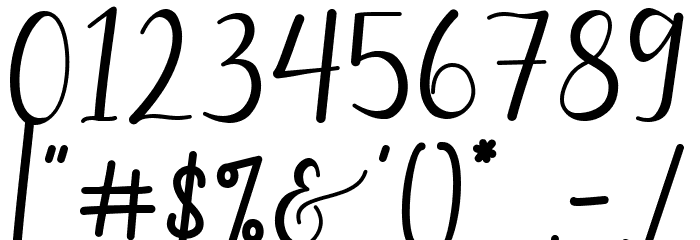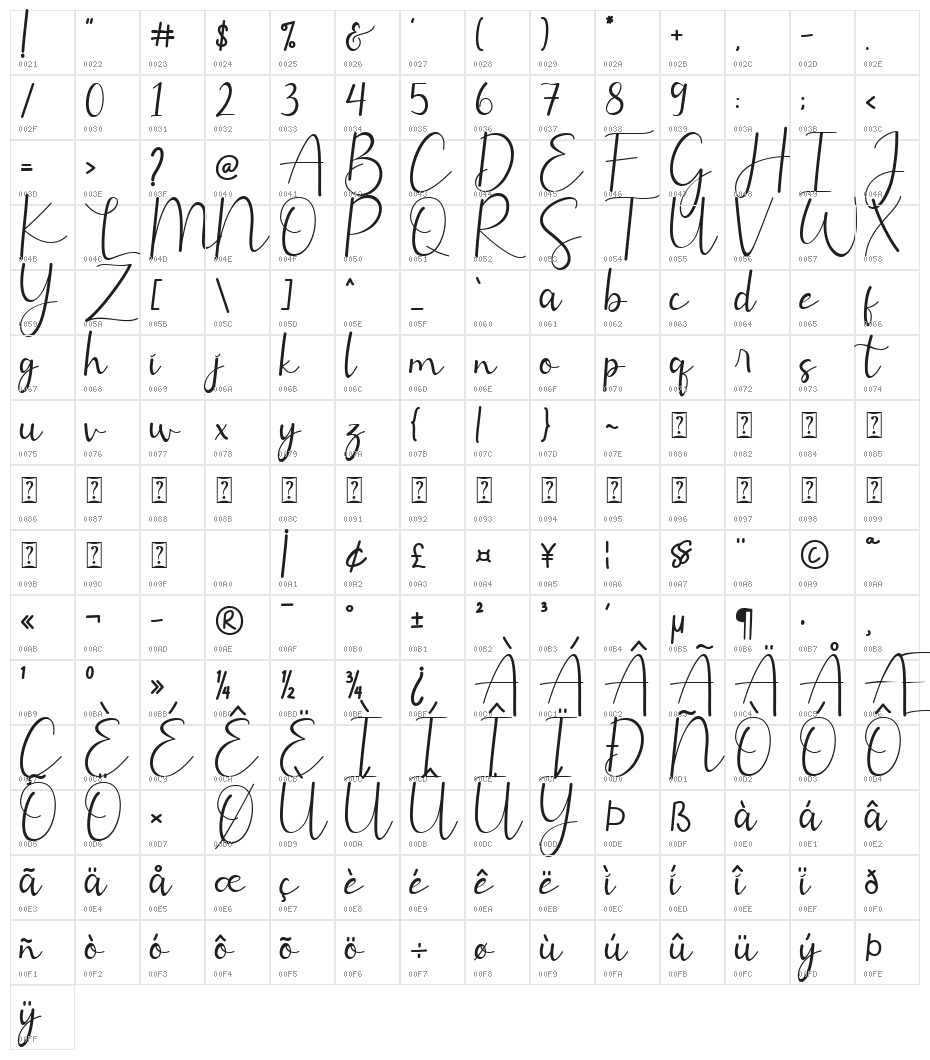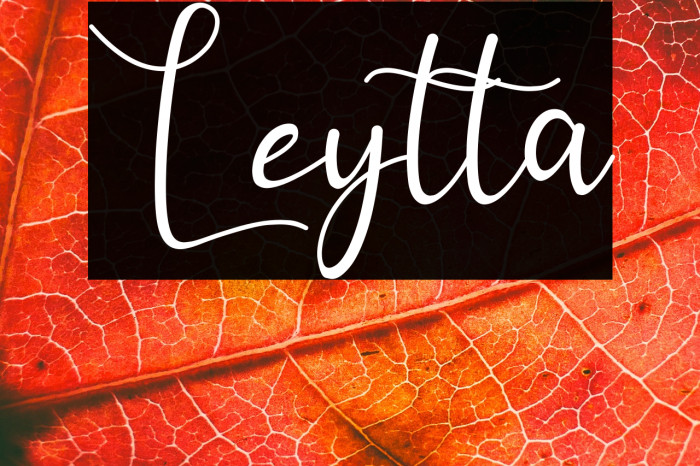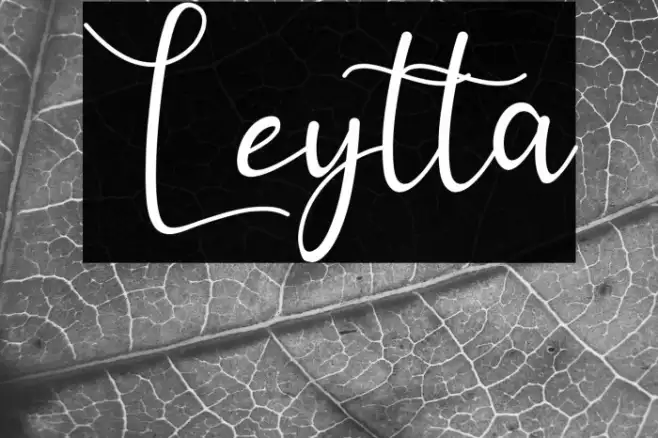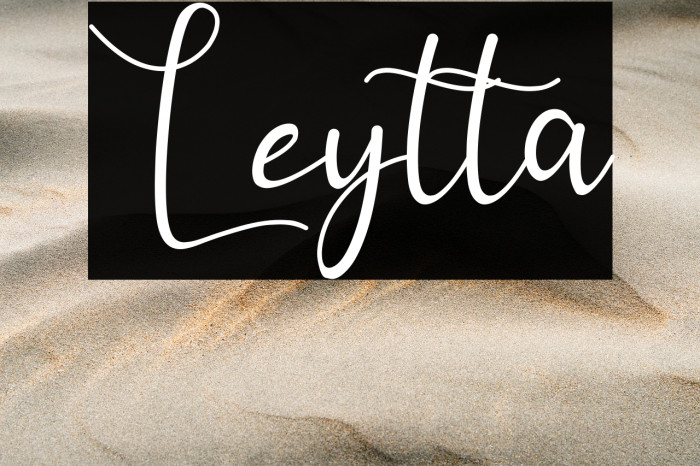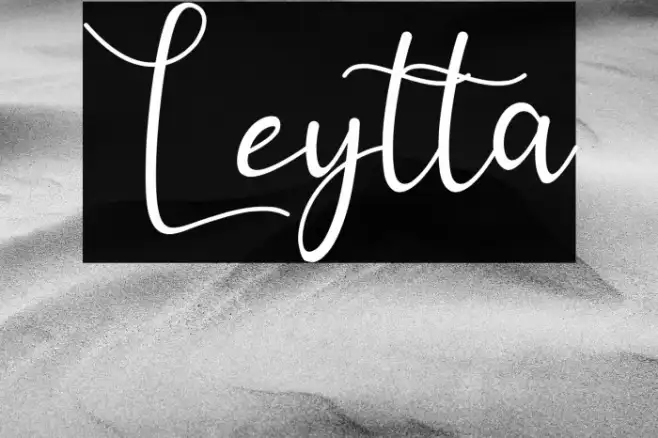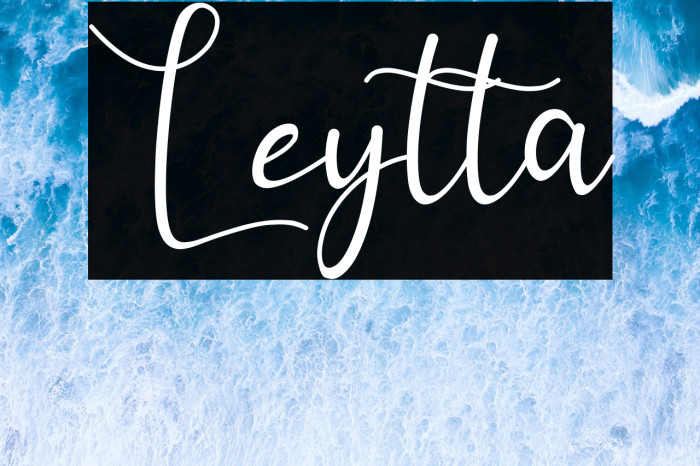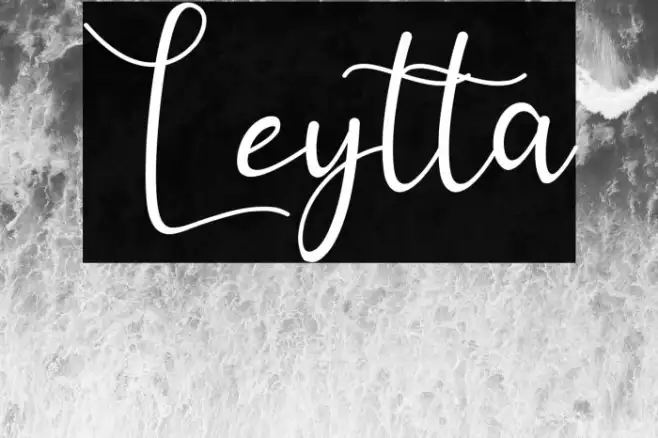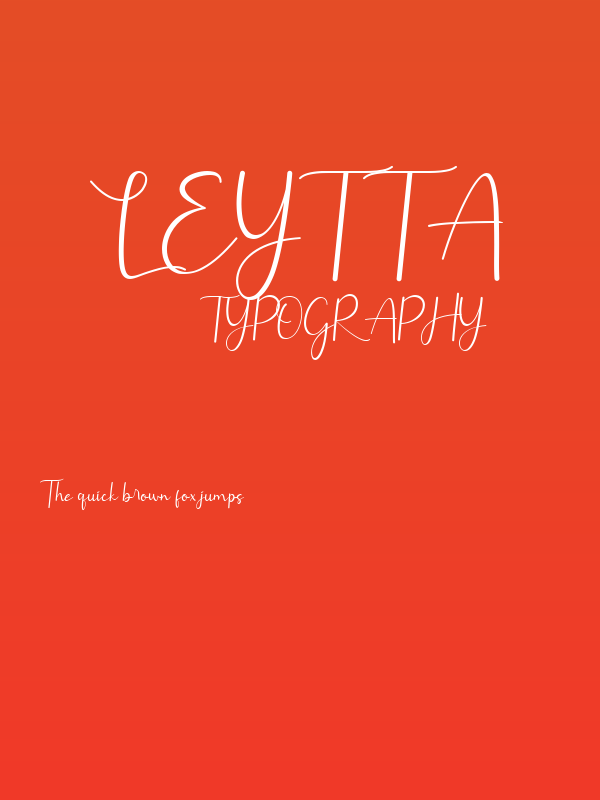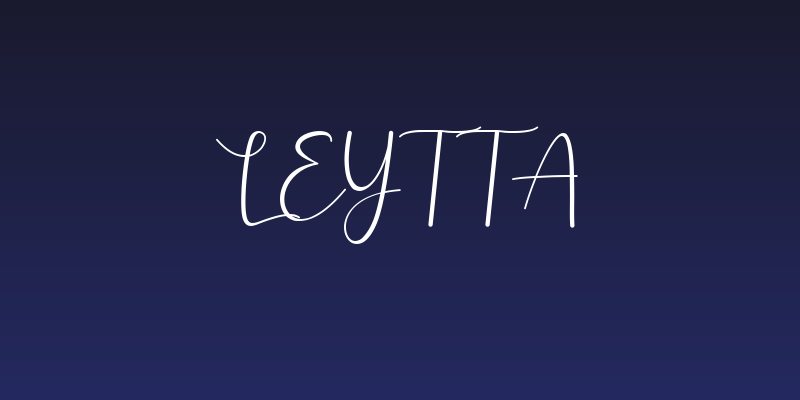
Leytta Font
Leytta Description
This font exudes a playful and elegant charm, characterized by its flowing, cursive style. The uppercase letters are tall and slender, with graceful loops and curves that give them a whimsical feel. The lowercase letters maintain a consistent fluidity, with some characters featuring unique swashes and flourishes that add to the font's decorative appeal. The numerals are clear and legible, maintaining the same cursive style, while the special characters blend seamlessly with the overall design. This font's handwritten aesthetic makes it ideal for projects that require a personal touch.